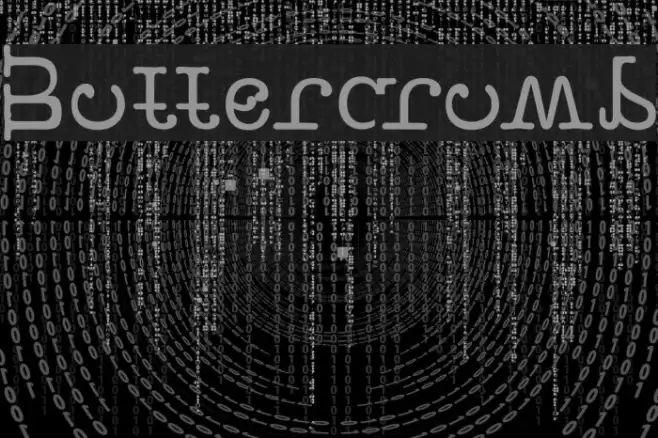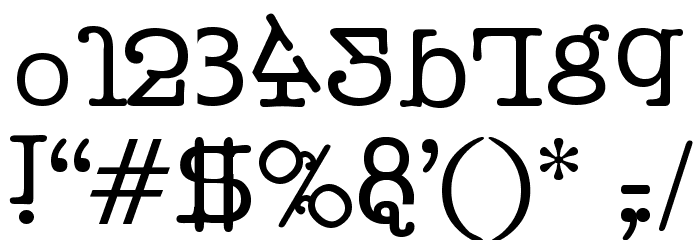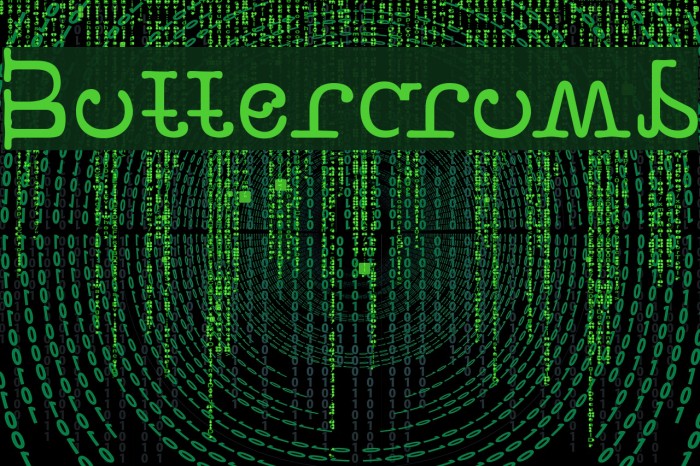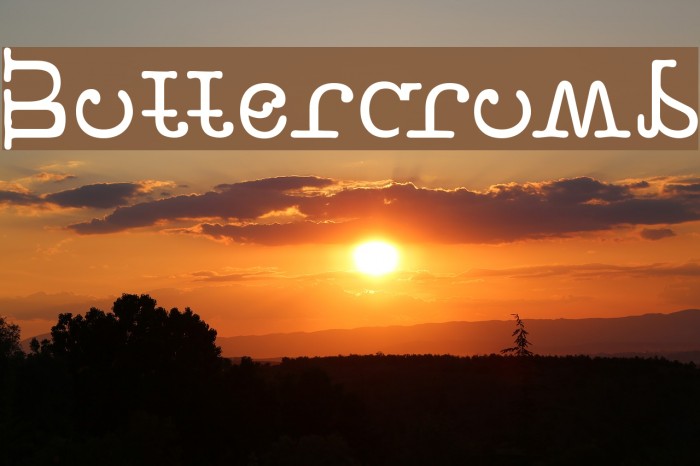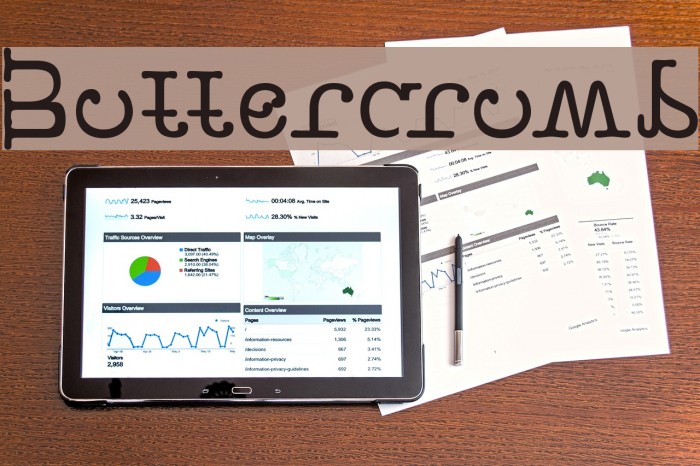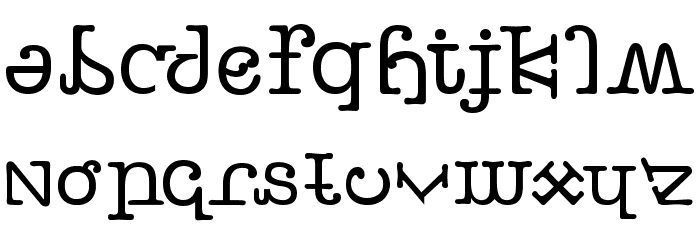
Buttercrumb Font
Buttercrumb Description
This font features a playful and whimsical design with a unique twist on traditional letterforms. Each character is crafted with a sense of fun, incorporating unexpected curves and loops that give it a distinctive personality. The uppercase letters are bold and eye-catching, while the lowercase letters maintain a consistent style that complements the overall design. Numbers and special characters follow the same playful theme, making this font versatile for various creative projects. The strokes are moderately thick, providing good legibility while maintaining the decorative elements.
A playful and whimsical font with unique curves and loops from Quirky fonts.
- Proposed Projects: Ideal for children's books, playful branding, greeting cards, and creative posters.